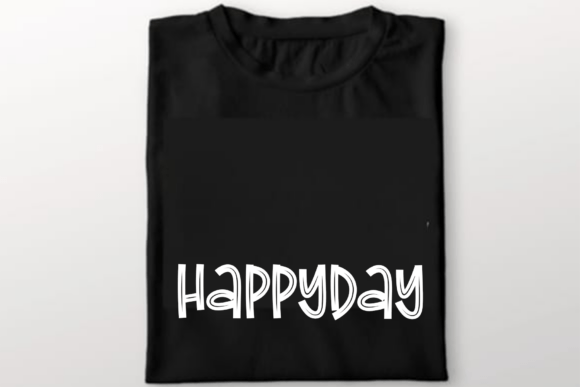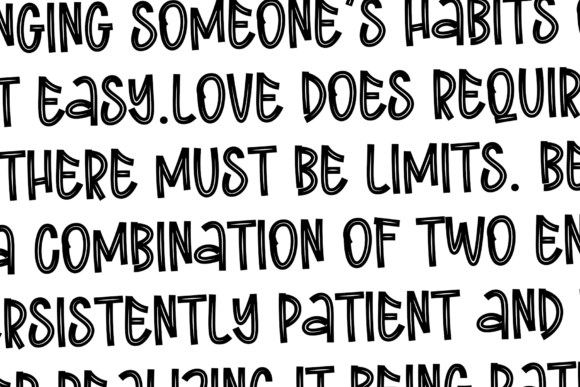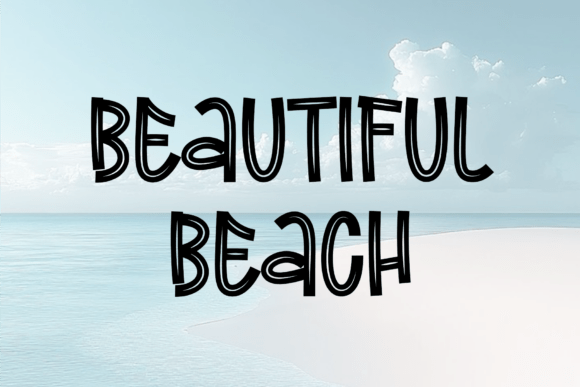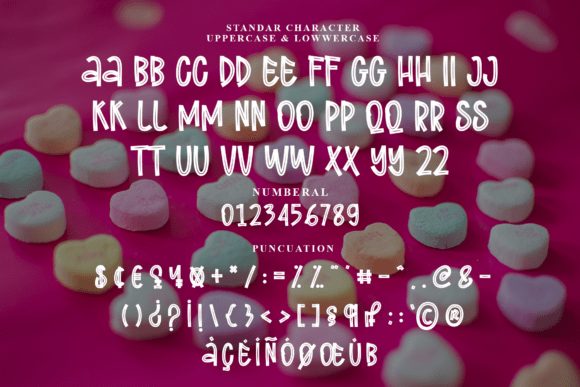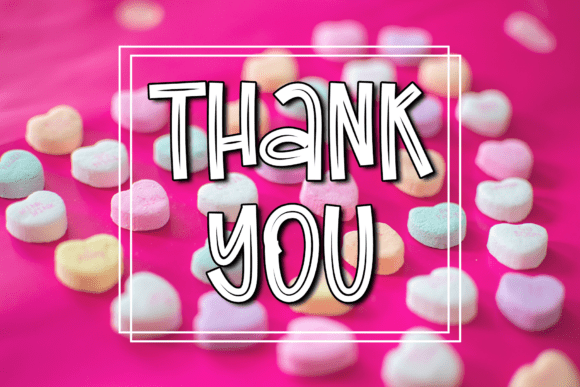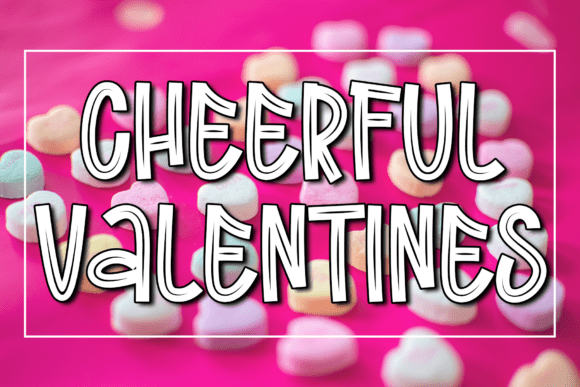
Introducing Cheerful Valentines Font: The Ultimate Choice for Spreading Love and Joy
Are you looking for a font that embodies the spirit of Valentine’s Day and injects a dose of high-energy joy into your designs? Look no further than Cheerful Valentines, a vibrant and multi-layered display font that’s sure to capture the hearts of designers and audiences alike. In this article, we’ll dive into the unique features of Cheerful Valentines and explore its endless possibilities for creative expression.
A Dynamic 3D-Inspired Aesthetic
Cheerful Valentines is characterized by its bold, blocky letterforms and distinctive “inline” detail, which gives it a dynamic 3D-inspired aesthetic that’s hard to ignore. The sturdy, rounded structure of the font provides a friendly and approachable feel, making it perfect for designs that require a playful and cheerful touch.
One of the standout features of Cheerful Valentines is its internal decorative strokes, which add a touch of handcrafted whimsy to the font. This unique detail sets it apart from other display fonts and gives it a distinctive personality that’s sure to shine in any design.
Perfect for Romantic and Playful Designs
Cheerful Valentines is an exceptional choice for designers looking to create romantic event posters, playful greeting cards, festive social media graphics, and “sweet” product packaging. The font’s bold and cheerful personality makes it perfect for Valentine’s Day campaigns, while its friendly and approachable feel also suits designs for children’s brands and other playful projects.
Whether you’re designing for a romantic getaway, a Valentine’s Day sale, or a children’s birthday party, Cheerful Valentines is the perfect font to bring a sense of lighthearted celebration to your headlines. Its versatility and charm make it an excellent addition to any designer’s toolkit.
Cheerful Valentines offers endless possibilities for designers and crafters looking to add a touch of personality to their projects. Here are just a few ideas to get you started:
• Valentine’s Day cards and invitations: Create romantic and playful Valentine’s Day cards and invitations that are sure to impress your loved ones.
• Social media graphics: Use Cheerful Valentines to create festive social media graphics that will make your followers smile.
• Product packaging: Add a touch of whimsy to your product packaging with Cheerful Valentines, perfect for sweet treats and gifts.
• Event posters: Create eye-catching event posters for romantic getaways, Valentine’s Day sales, and children’s birthday parties.
Why Choose Cheerful Valentines Font?
So why choose Cheerful Valentines font for your next design project? Here are just a few reasons:
• Unique personality: Cheerful Valentines has a distinctive personality that’s sure to shine in any design.
• Versatility: The font is perfect for a wide range of design projects, from romantic event posters to playful greeting cards.
• Ease of use: Cheerful Valentines is easy to use and pairs well with a variety of other fonts and design elements.
• High-energy joy: The font is designed to spread love and high-energy joy, making it perfect for designs that require a playful touch.
In conclusion, Cheerful Valentines font is a vibrant and multi-layered display font that’s perfect for designers looking to add a touch of personality to their projects. Its dynamic 3D-inspired aesthetic, friendly and approachable feel, and internal decorative strokes make it an exceptional choice for romantic event posters, playful greeting cards, festive social media graphics, and “sweet” product packaging.